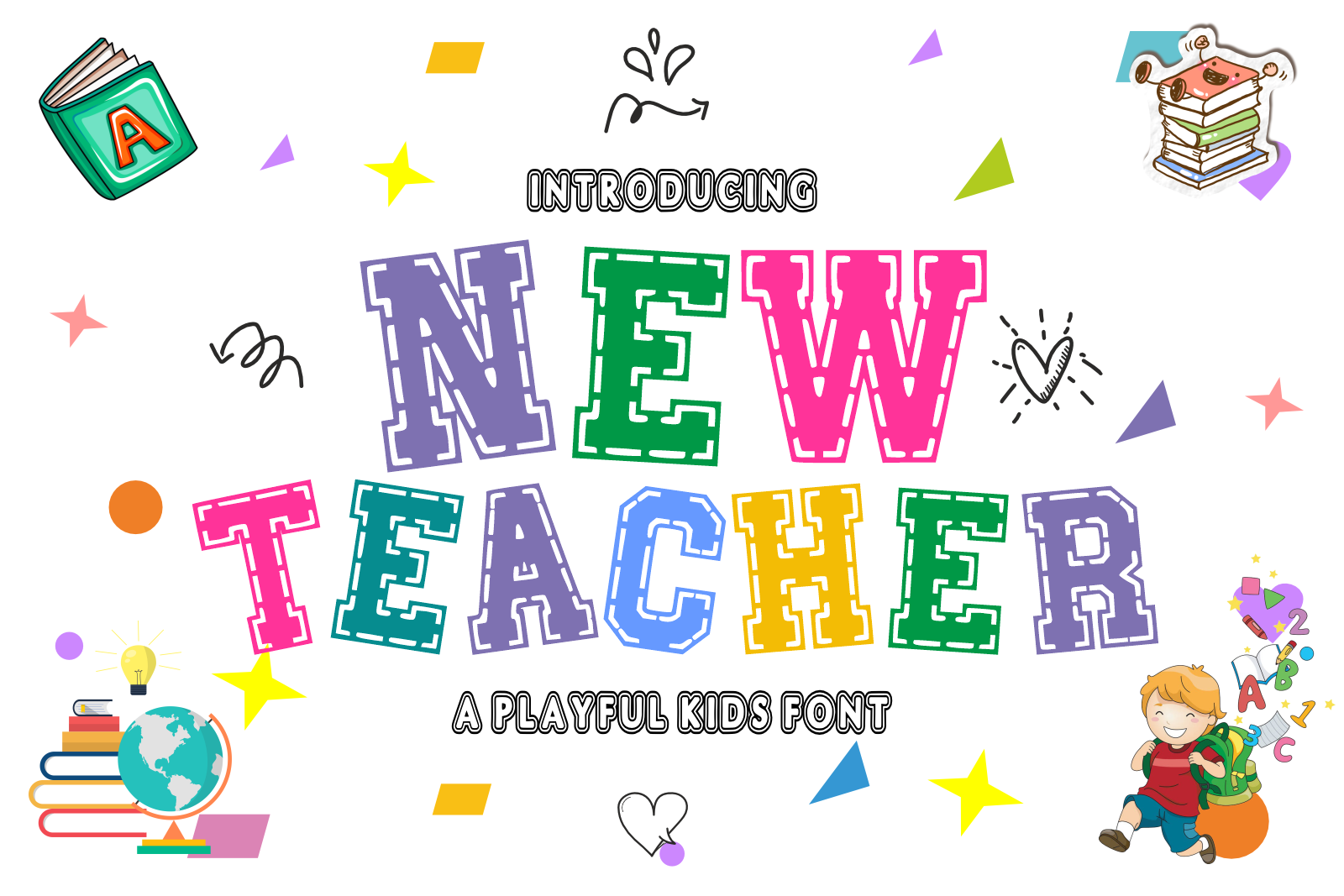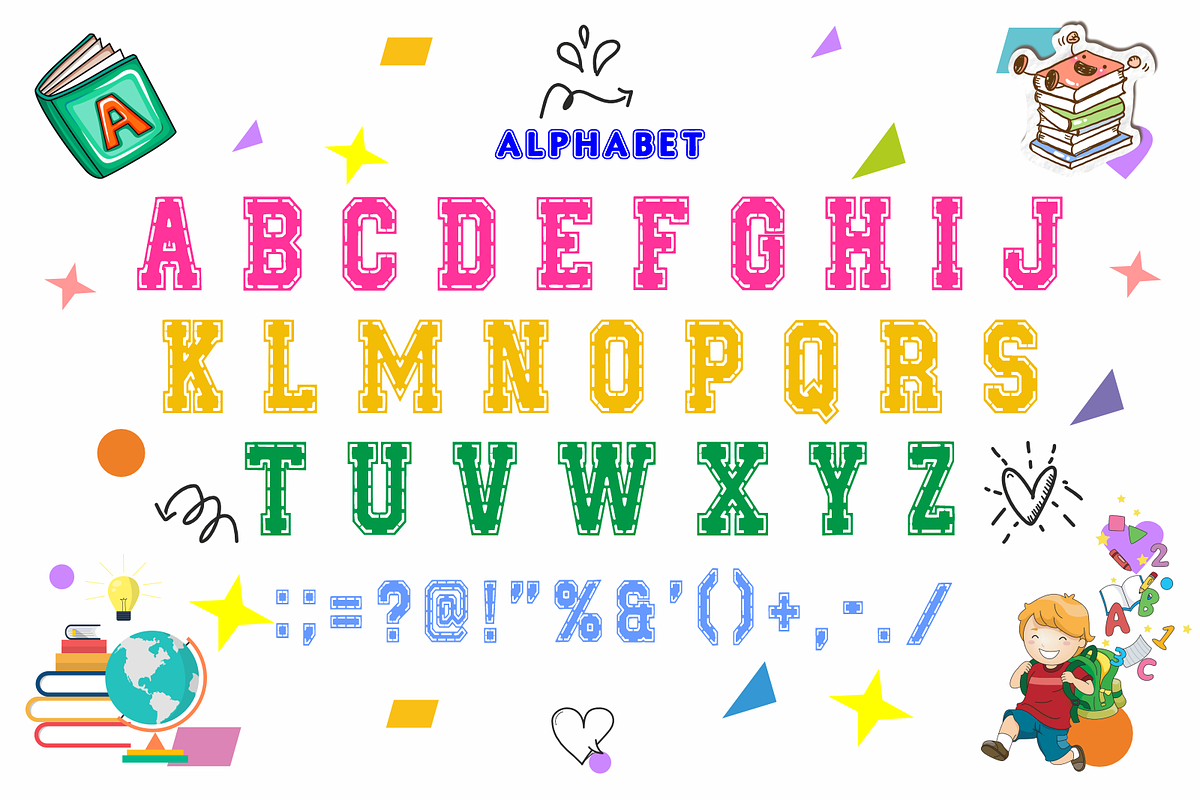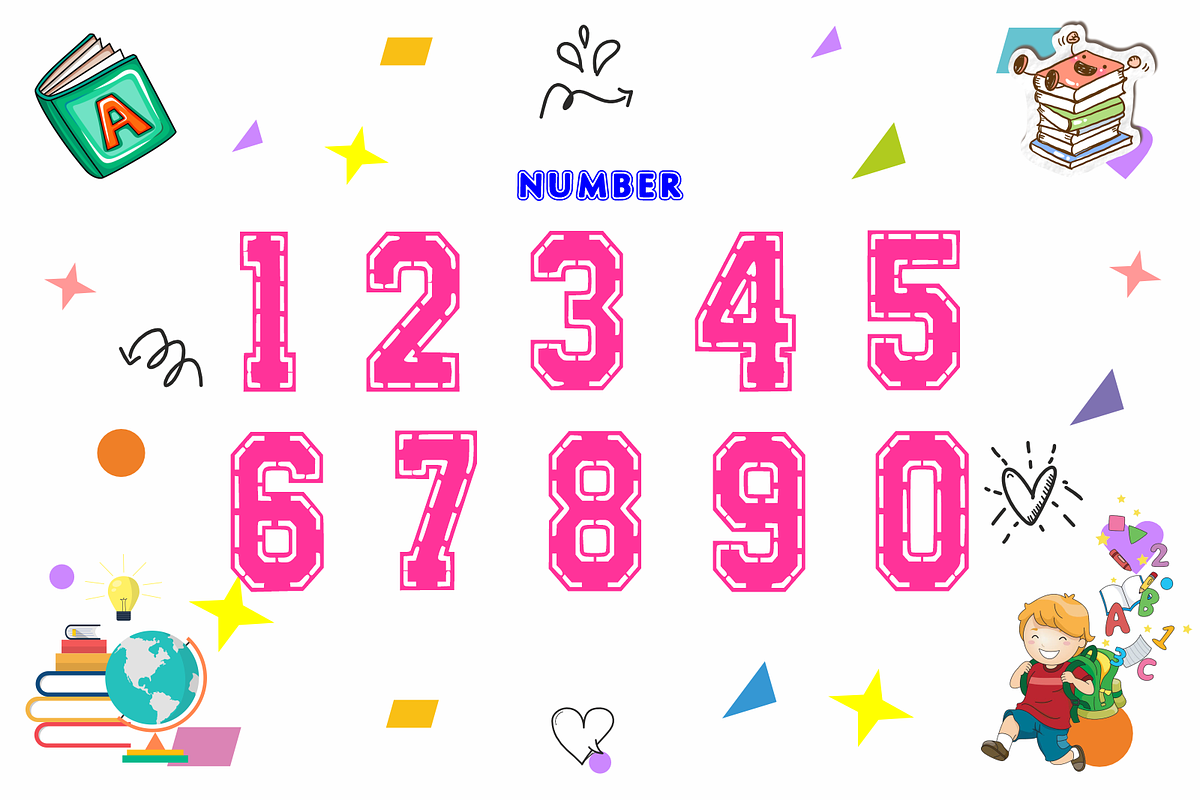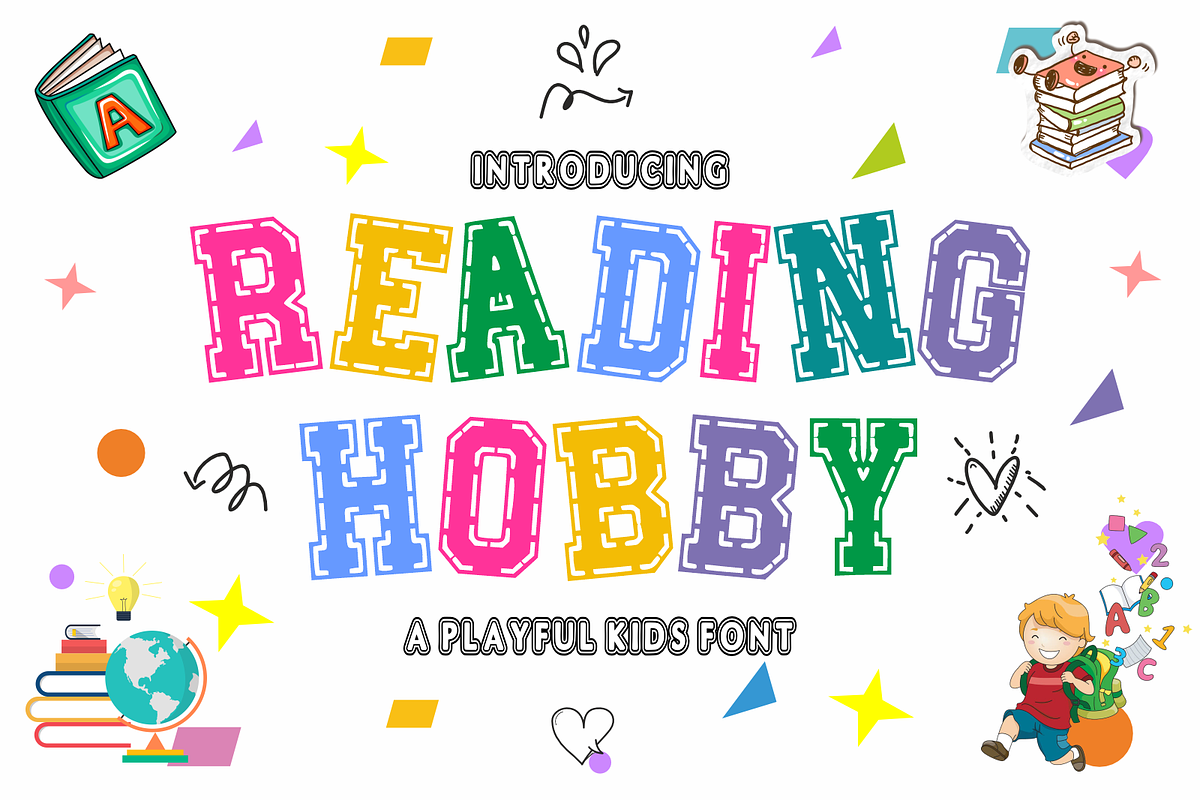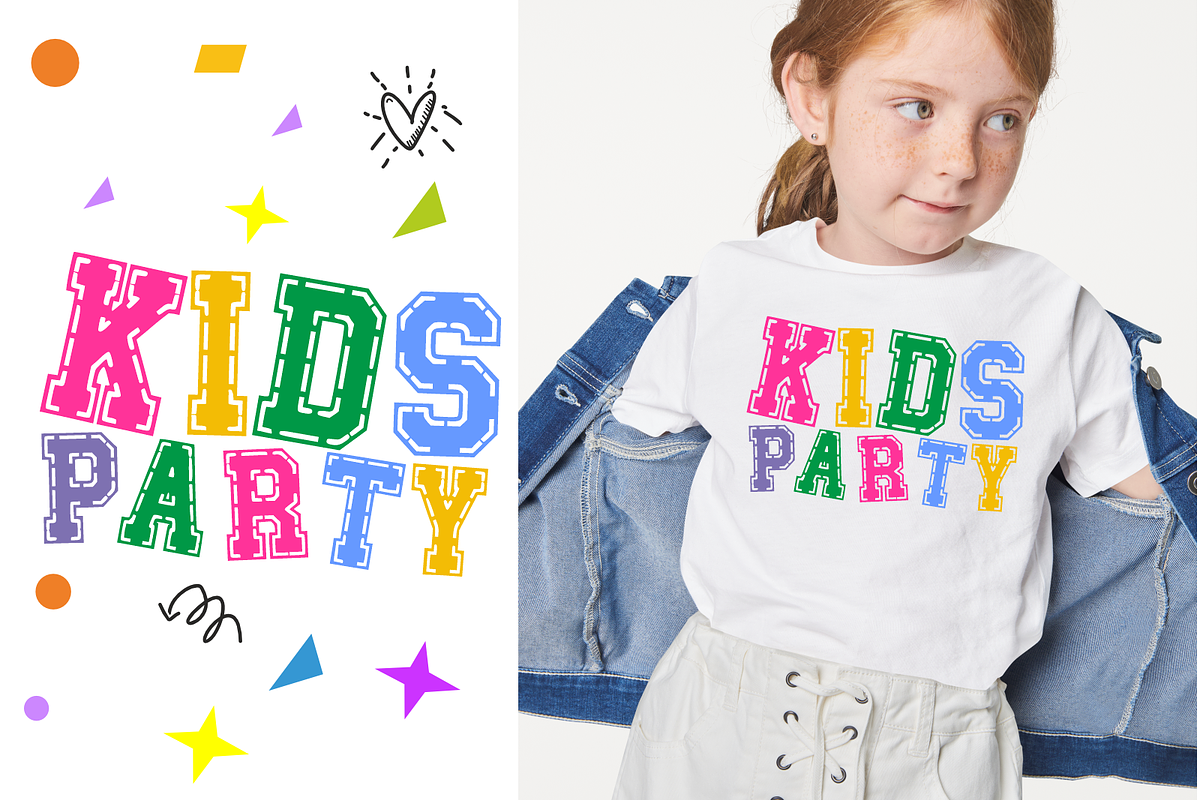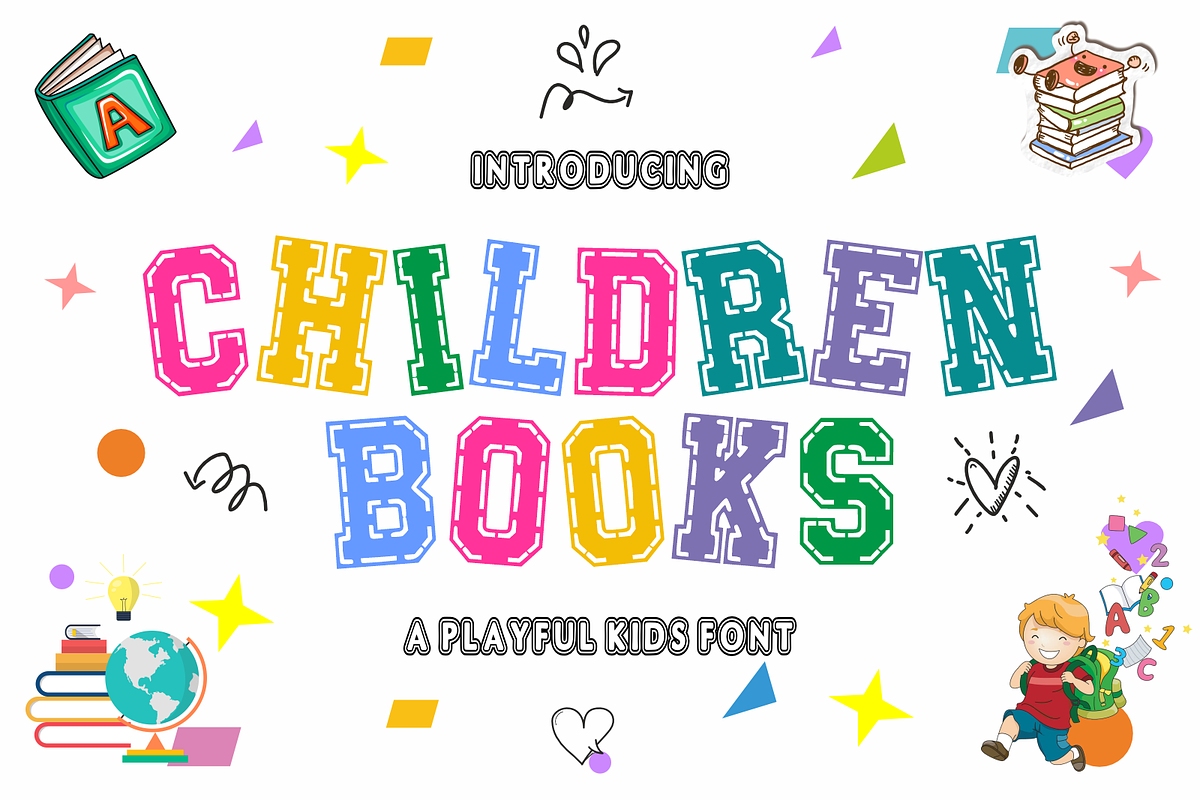
New Teacher - Smart & Playful Font
New Teacher is a playful and bold display font inspired by cheerful classroom vibes and kids learning moments 🎒✏️ Designed with chunky letterforms and stitched-style details, this font brings a fun, friendly, and educational feel to any project.
Perfect for kids designs, school themes, educational materials, worksheets, posters, logos, and playful branding, New Teacher helps your text stand out while staying cute and approachable.
🔤 Includes: • Uppercase Letters • Numbers • Basic Symbols